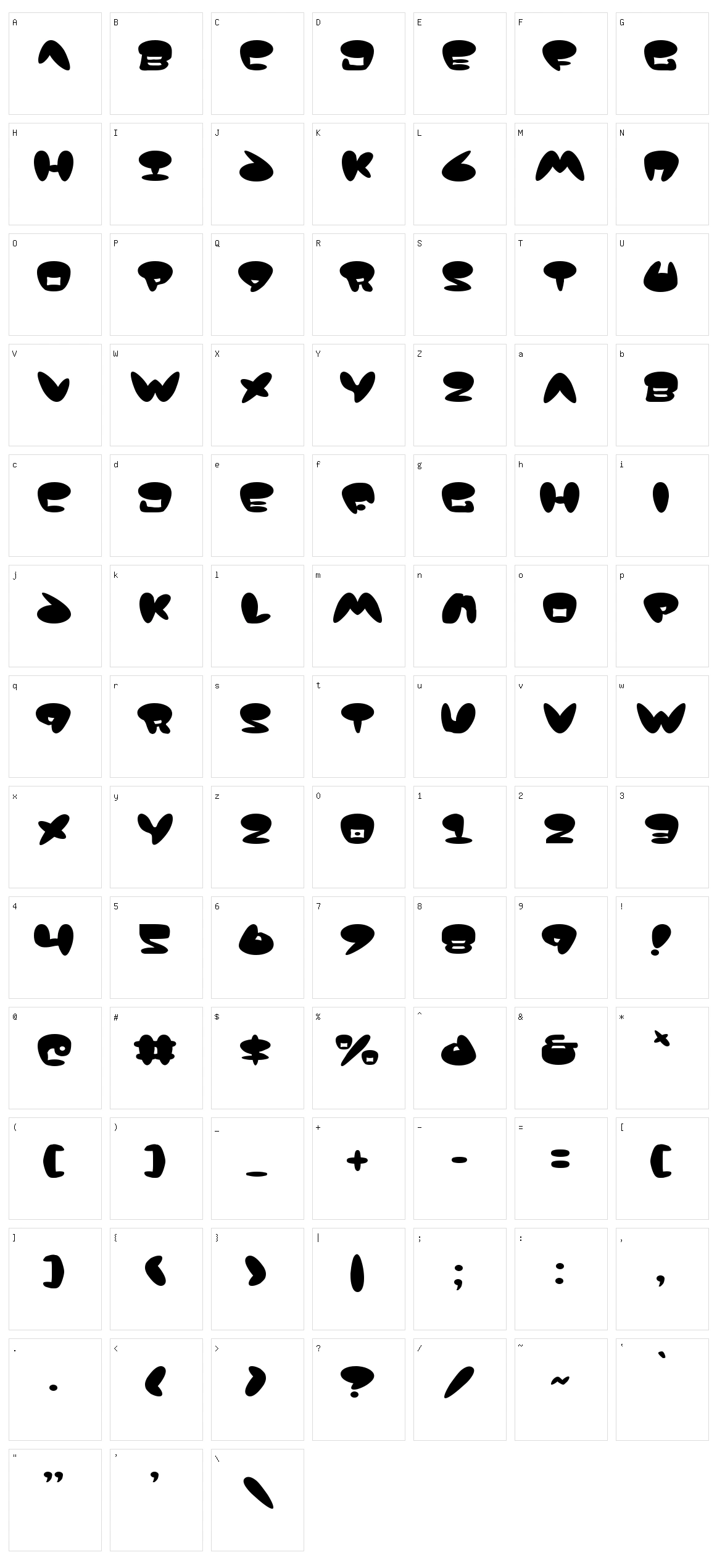
The free font Jackson is carefully designed by Iconian Fonts, showcasing a thoughtful balance of creativity and usability and falls under the Groovy font style. When you download the ZIP file, it contains only 72.03 KB of font files, making it lightweight and quick to download. Please review the license details below to understand permitted usage and distribution rights. If license information is not available, we recommend using this font for personal projects only or contacting the author directly for commercial usage permissions.